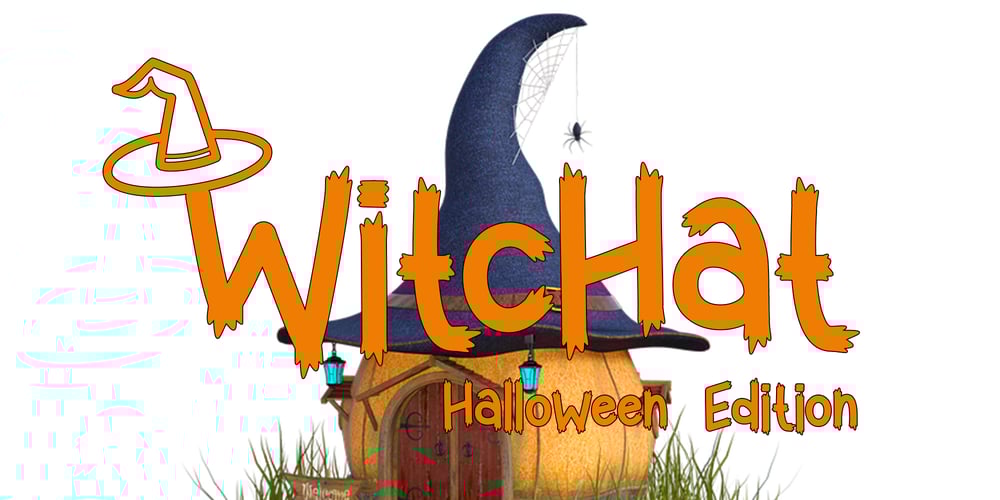
Witchat Font Family was designed by Endri Sulistyawan and published by Rashatype. Witchat contains 2 styles and family package options. Witchat is a cool and spooky display font. It is perfectly suitable for any Halloween-related project or crafty idea! The only limit is your imagination.